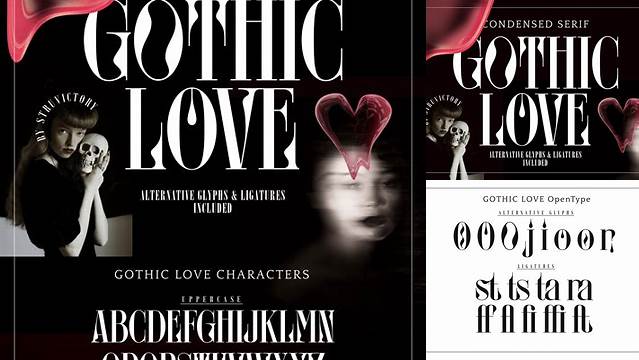
Hey guys! Are you looking to add a touch of dark elegance to your designs? Well, you've come to the right place! We're diving deep into the world of Gothic Love, a stunning condensed serif font that's perfect for a wide range of projects. Think wedding invitations, book covers, posters, and more. This font exudes a unique charm, blending the classic appeal of serif fonts with the edgy aesthetic of gothic typography. So, buckle up and let's explore everything about Gothic Love and how you can snag it for free!
What Makes Gothic Love So Special?
Before we get into the nitty-gritty of downloading and using this font, let's talk about what makes Gothic Love so special. It's not just another pretty typeface; it's a carefully crafted design that evokes a specific mood and feeling. The condensed nature of the font gives it a tall and slender appearance, adding a touch of sophistication and drama. The serif details, those little strokes at the ends of the letters, provide a classic and formal feel, while the overall gothic influence lends an air of mystery and intrigue. The result is a font that's both elegant and edgy, making it a versatile choice for various design projects. It's like the perfect blend of classic and contemporary, which is why it's become so popular among designers!
Where to Use Gothic Love Font
One of the best things about the Gothic Love font is its versatility. It's not just limited to dark and spooky designs. While it certainly excels in those areas, it can also be used in a variety of other contexts. Let's explore some of the best places to use this font:
- Wedding Invitations: Imagine your wedding invitations adorned with the elegant curves of Gothic Love. It adds a touch of romance and sophistication, perfect for setting the tone for your special day. The font's classic yet unique look makes it a standout choice for wedding stationery. Seriously, picture those elegant swashes and serifs β stunning!
- Book Covers: If you're designing a book cover, Gothic Love can be a fantastic option, especially for genres like fantasy, historical fiction, or even romance with a dark twist. The font's readability and distinct style make it eye-catching and memorable. It's the kind of font that grabs your attention on a bookshelf.
- Posters and Flyers: Need to create a poster that stands out? Gothic Love can help you achieve that. Its bold presence and unique character make it ideal for headlines and titles. Whether you're promoting a concert, an event, or a product, this font will ensure your message gets noticed. Think vintage posters with a modern twist β that's the vibe!
- Logos and Branding: If you're looking for a font that conveys elegance and sophistication, Gothic Love might be the perfect choice for your logo or branding materials. Its distinctive style will help your brand stand out from the crowd. It's all about creating a lasting impression, and this font definitely delivers.
- Web Design: Gothic Love can also be used in web design, particularly for headings and titles. Its readability and unique style make it a great choice for creating a visually appealing website. Just remember to use it sparingly to maintain a clean and balanced design. A little goes a long way, you know?
- Complete Character Set: A high-quality font will include a full character set, including uppercase and lowercase letters, numbers, punctuation marks, and symbols. This ensures you have everything you need to use the font effectively. Don't get caught short!
- Multiple Weights and Styles: Some fonts come in different weights (e.g., light, regular, bold) and styles (e.g., italic). Having these options gives you more flexibility in your design work. Variety is the spice of life, after all!
- Kerning and Spacing: Kerning refers to the spacing between individual letters, while spacing refers to the overall spacing of the font. A well-kerned and spaced font will be easy to read and visually appealing. Readability matters!
Gothic Love Font: A Designer's Secret Weapon
In conclusion, Gothic Love font is a versatile and elegant typeface that can add a touch of sophistication and mystery to your designs. Whether you're designing wedding invitations, book covers, logos, or websites, Gothic Love can be a valuable asset in your design toolkit. Just remember to use it wisely, considering readability, licensing terms, and overall design principles. With its unique blend of classic and contemporary elements, Gothic Love truly is a designer's secret weapon! Design dynamo! So go ahead, download it, experiment with it, and let your creativity soar!